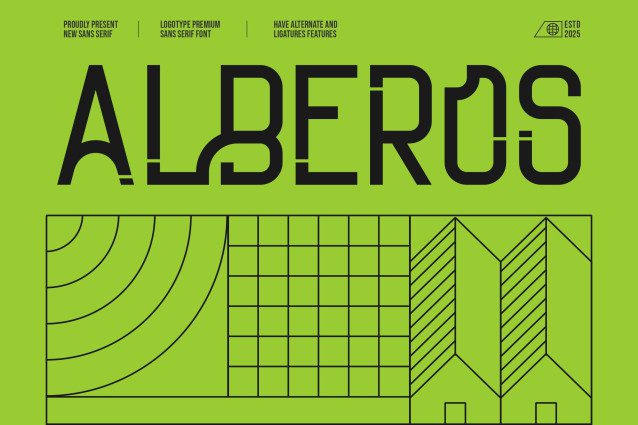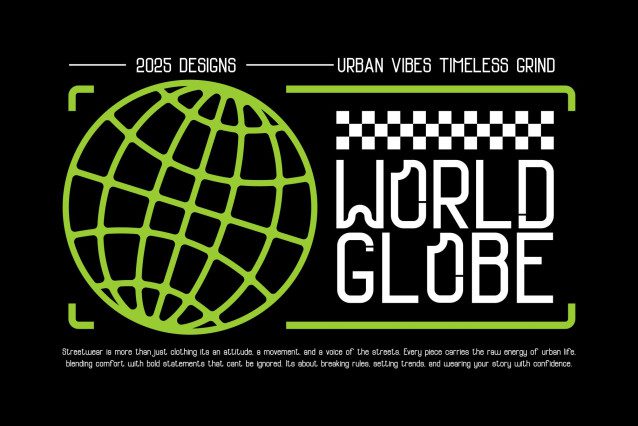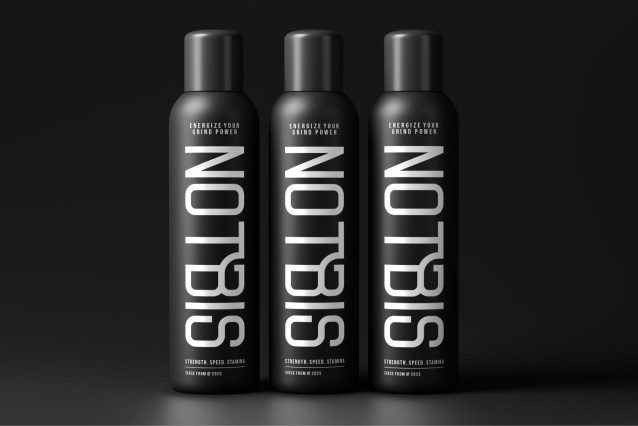
Alberos Font
Alberos Sans Serif is a modern and futuristic font type for all branding and logo designs. This modern and futuristic sans serif font has a beautiful character. This font is suitable for invitation card designs, cool logos, movie titles, movie names, business cards, book titles, brand names, and various other designs. Alberos Sans Serif is a smooth sans serif font that exudes sophistication and the moment. Its stylish alternates and ligatures make this font a perfect partner for any project.
FEATURE :
– Ligature and Alternate